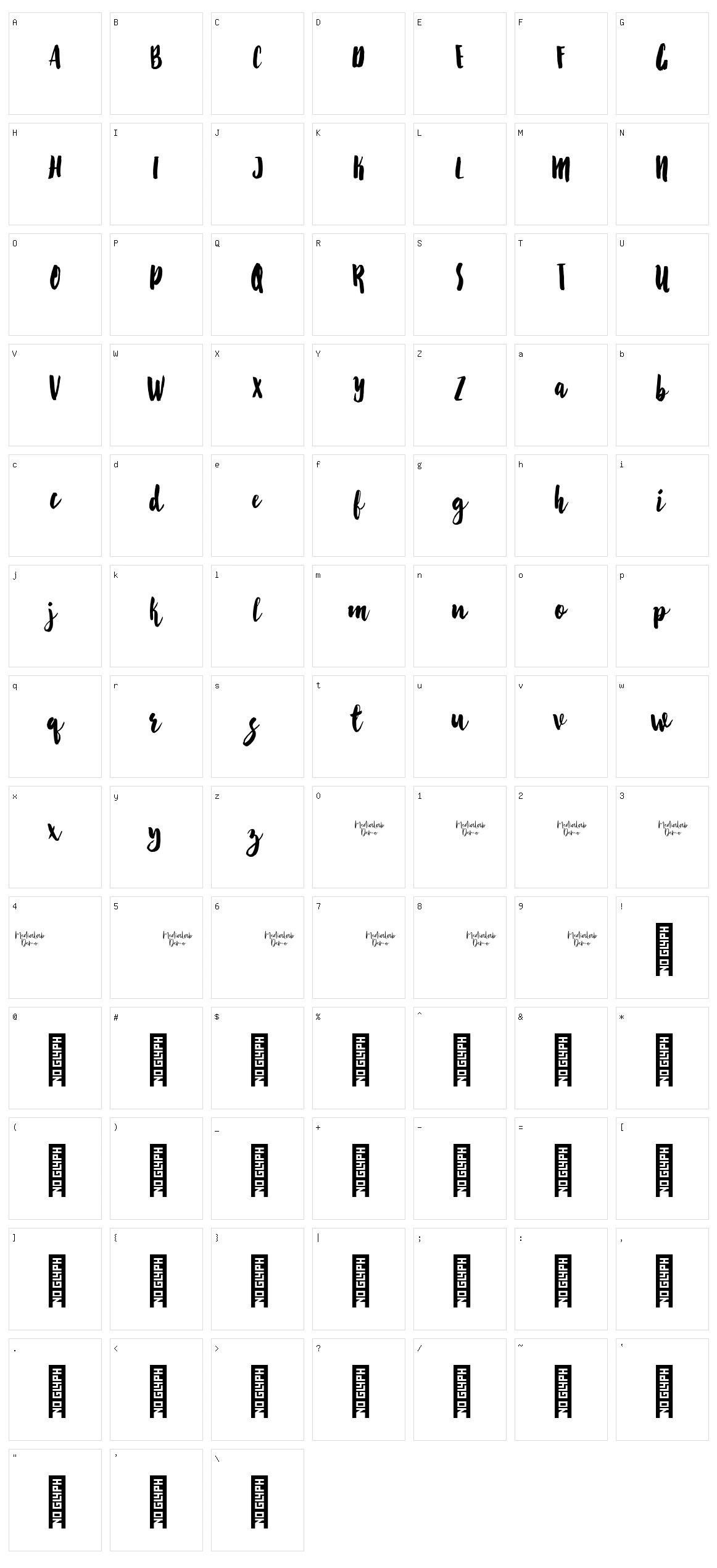
The free font Starshine is carefully designed by Dmitriy Evans, showcasing a thoughtful balance of creativity and usability and falls under the Script font style. When you download the ZIP file, it contains only 23.04 KB of font files, making it lightweight and quick to download. Please review the license details below to understand permitted usage and distribution rights. If license information is not available, we recommend using this font for personal projects only or contacting the author directly for commercial usage permissions.